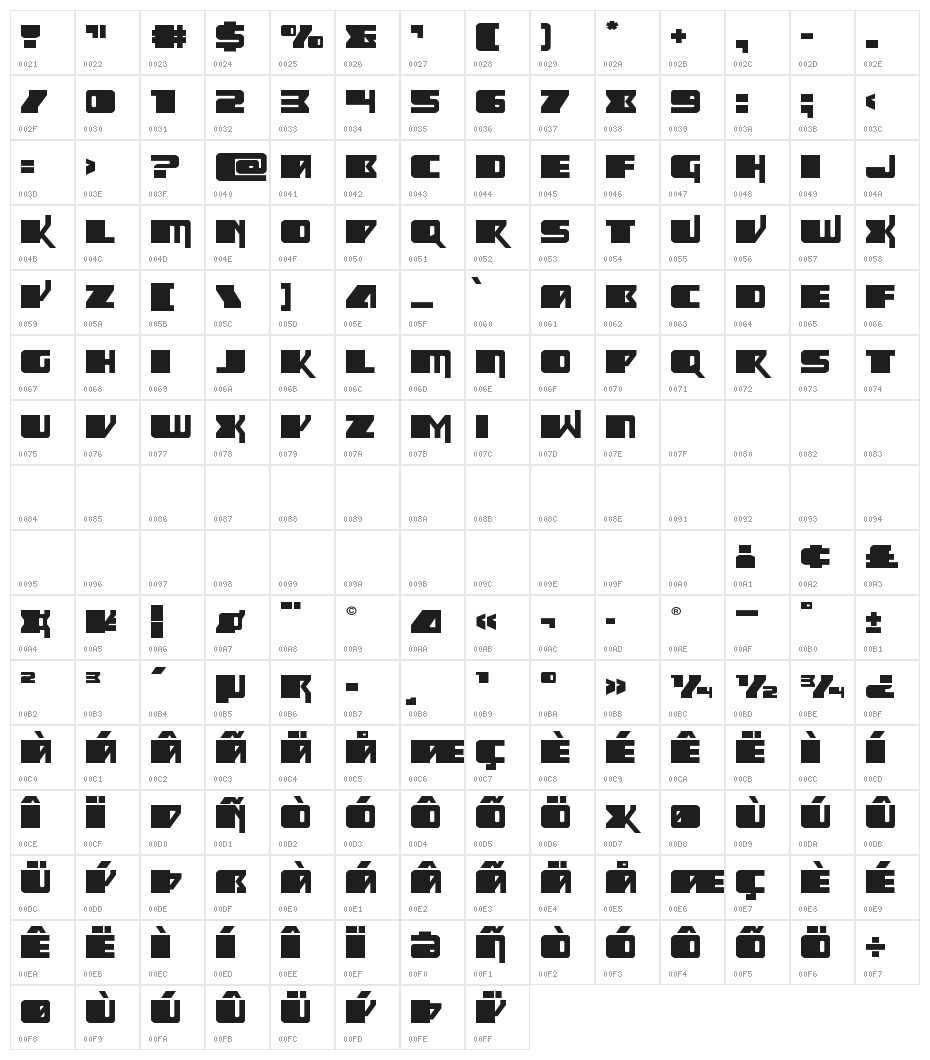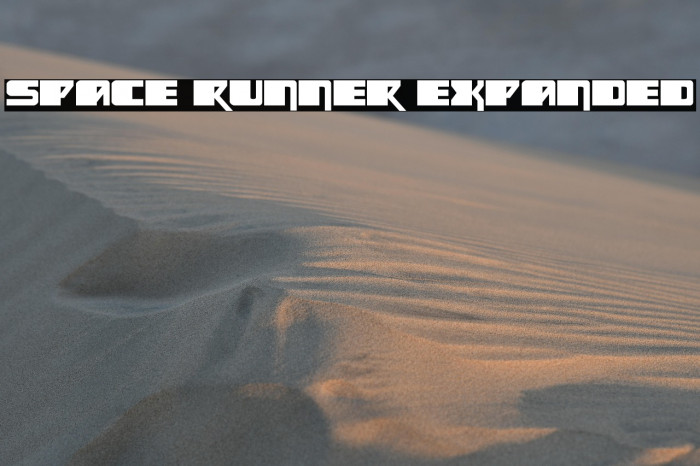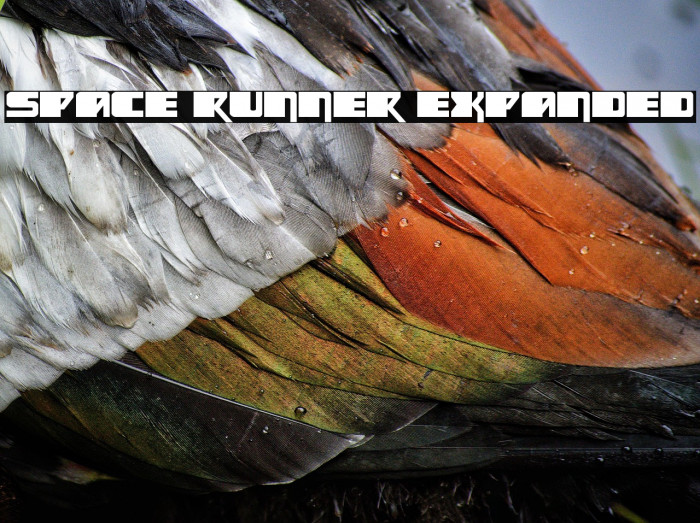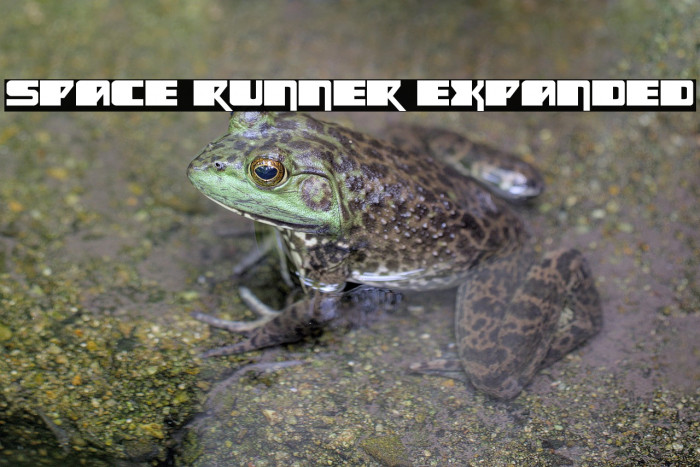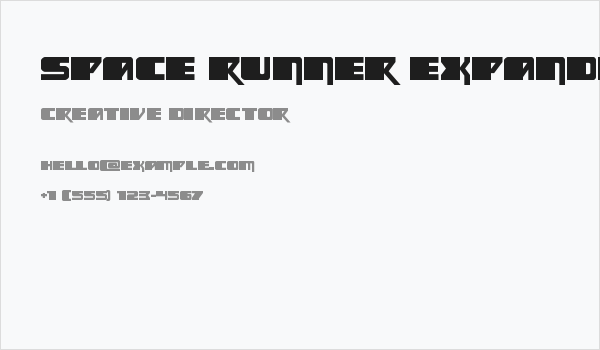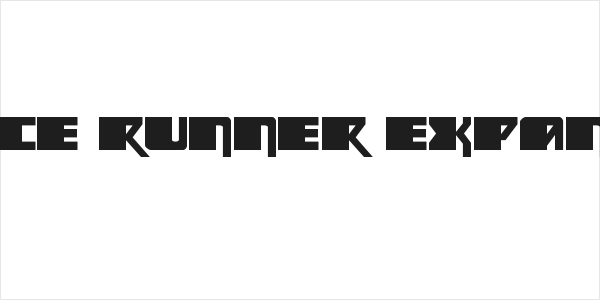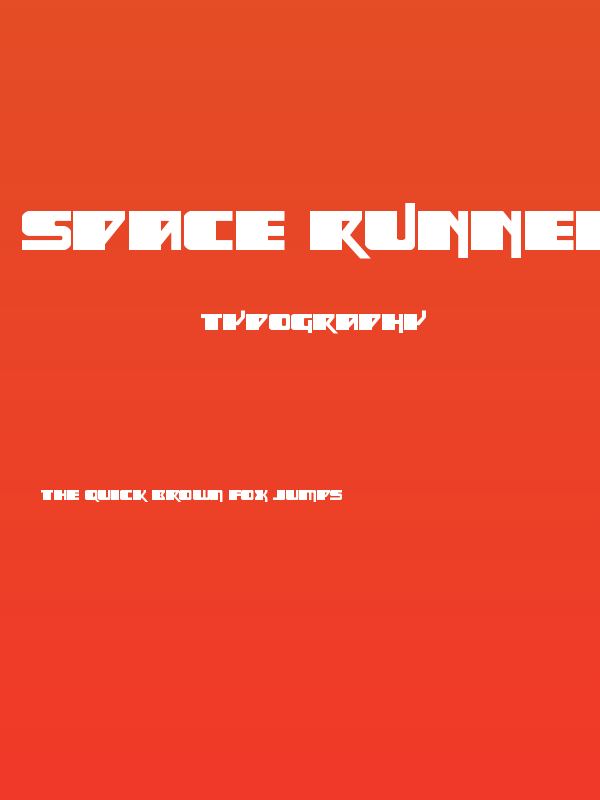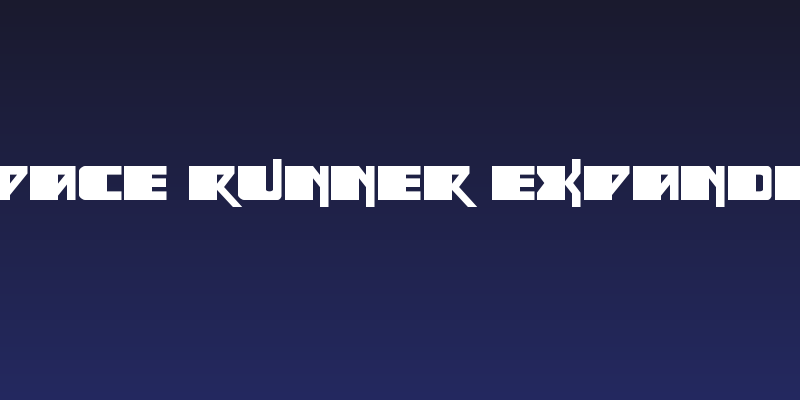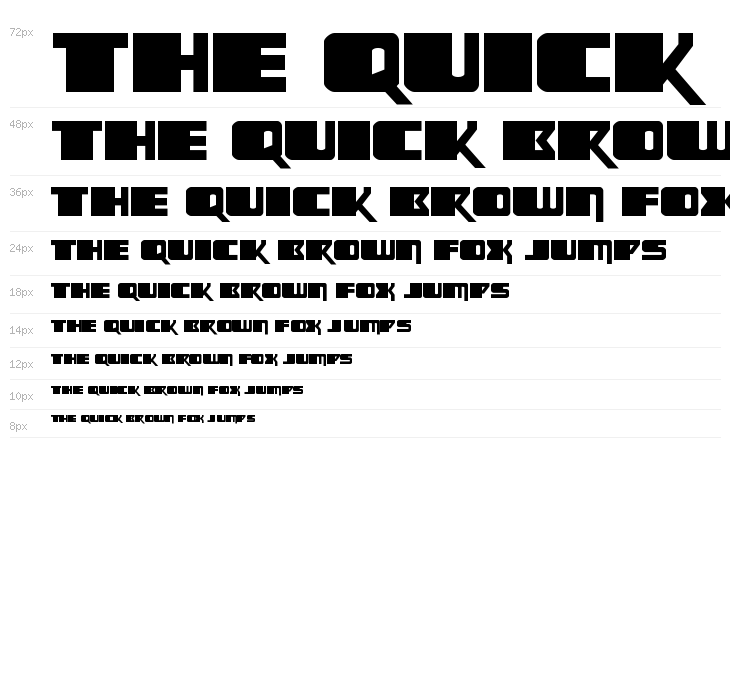
Space Runner Expanded Font
Space Runner Expanded Description
This font features a bold, futuristic design with sharp angles and geometric shapes. The characters are wide and blocky, creating a strong visual impact. The uppercase letters are particularly striking, with unique cutouts and angular extensions that give them a dynamic, forward-moving appearance. The lowercase letters maintain the same boldness, ensuring consistency across text. Numbers and special characters are equally robust, making them stand out in any design. This font is perfect for projects that require a modern, tech-inspired look.